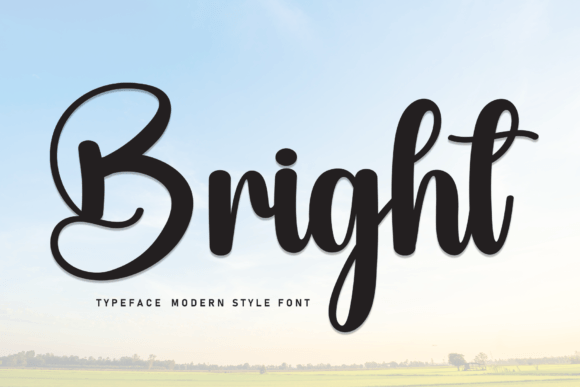
The Bright Font: A Bold and Expressive Companion for Your Design Projects
I’ll never forget the time I was working on a project for a client who needed a bold, yet elegant font to represent their brand. I had spent hours scouring the internet for the perfect one, but nothing seemed quite right. That was until I stumbled upon the Bright font. Its thick and solid lines immediately caught my attention, and I knew I had found the one. In this article, I’ll share my experience with the Bright font, its features, and how to make the most of it in your design projects.
A Personal Review of Bright Font
- ✨ Easy to read: The Bright font’s thick lines make it perfect for headings, titles, and large text displays.
- ✅ Balanced design: The font’s conservative bends ensure it doesn’t overwhelm the eyes, making it suitable for long blocks of text.
- 🎨 Playful yet professional: Bright font strikes a perfect balance between playfulness and professionalism, making it versatile for a wide range of design projects.
While the Bright font is an excellent choice for many projects, there are a few things to keep in mind:
- 🤔 Limited italic support: The Bright font doesn’t have a traditional italic style, which might be a limitation for some projects.
- ⚠️ Not ideal for body text: While the font is easy to read, its bold nature makes it less suitable for long blocks of body text.
The Story Behind Bright Font
The Bright font was designed by a team of typographers who aimed to create a bold and expressive font that would be perfect for a wide range of design projects. Inspired by traditional signage and printmaking, the Bright font combines playfulness with professionalism, making it a versatile choice for designers, crafters, and creative hobbyists.
Q: What is the Bright font best used for?
A: The Bright font is best used for headings, titles, and large text displays. Its bold nature makes it perfect for designs that require attention-grabbing text.
Q: Is the Bright font suitable for body text?
A: While the Bright font is easy to read, its bold nature makes it less suitable for long blocks of body text. Consider using a lighter font for body text and reserving the Bright font for headings and titles.